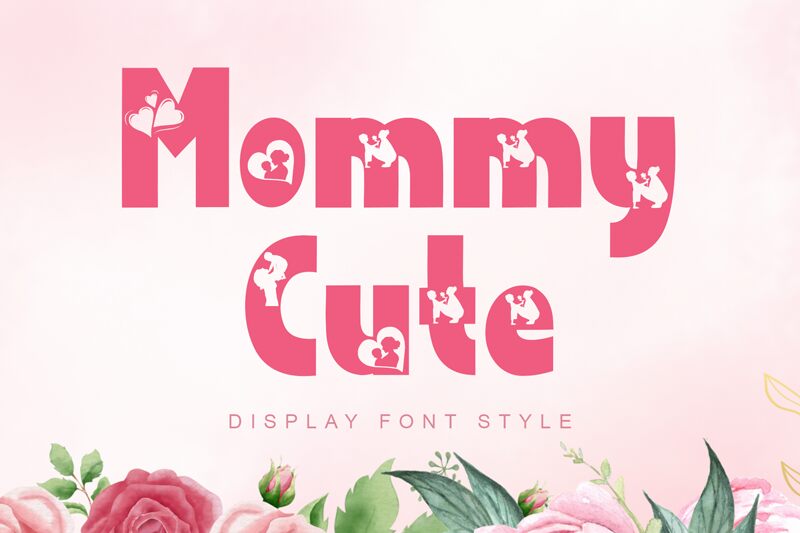
Mommy Cute font by Yoga Letter is a decorative font with a playful and whimsical style. This free font captures a childlike essence with its charming and friendly appearance, making it perfect for conveying warmth and affection. The heart motifs throughout add an element of fun and cheerfulness, inviting readers into the content. Mommy Cute’s modern design is versatile and easily integrates into various themed projects.
The font is suitable for children’s products or events, greeting cards, nursery decor, birthday invitations, toy packaging, educational materials, storybooks, posters, banners, and social media graphics. Its delightful style engages audiences with a touch of whimsy and modernity.